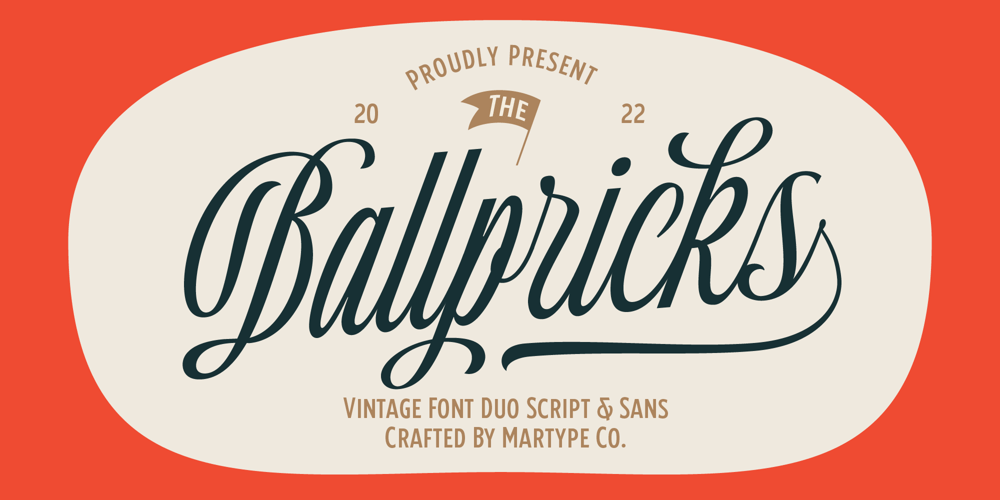
Ballpricks Font Family was designed by Umar Al Farouq and published by Martype co. Ballpricks contains 2 styles and family package options. Ballpricks Script is a vintage script font designed with carefully handcrafted. Good for branding, T-shirts, label design, any vintage and retro design, headlines, logotypes, and any project with script font purposes. This font also can make you happy when you design something even that you don’t like, and of course, this font makes your design flawless and come with reasonable prices for this unique font.Multilingual Support support many different languages 20+ .Additional InformationNeed anything to help? Email me at: hello@martype.coThanks! Umar